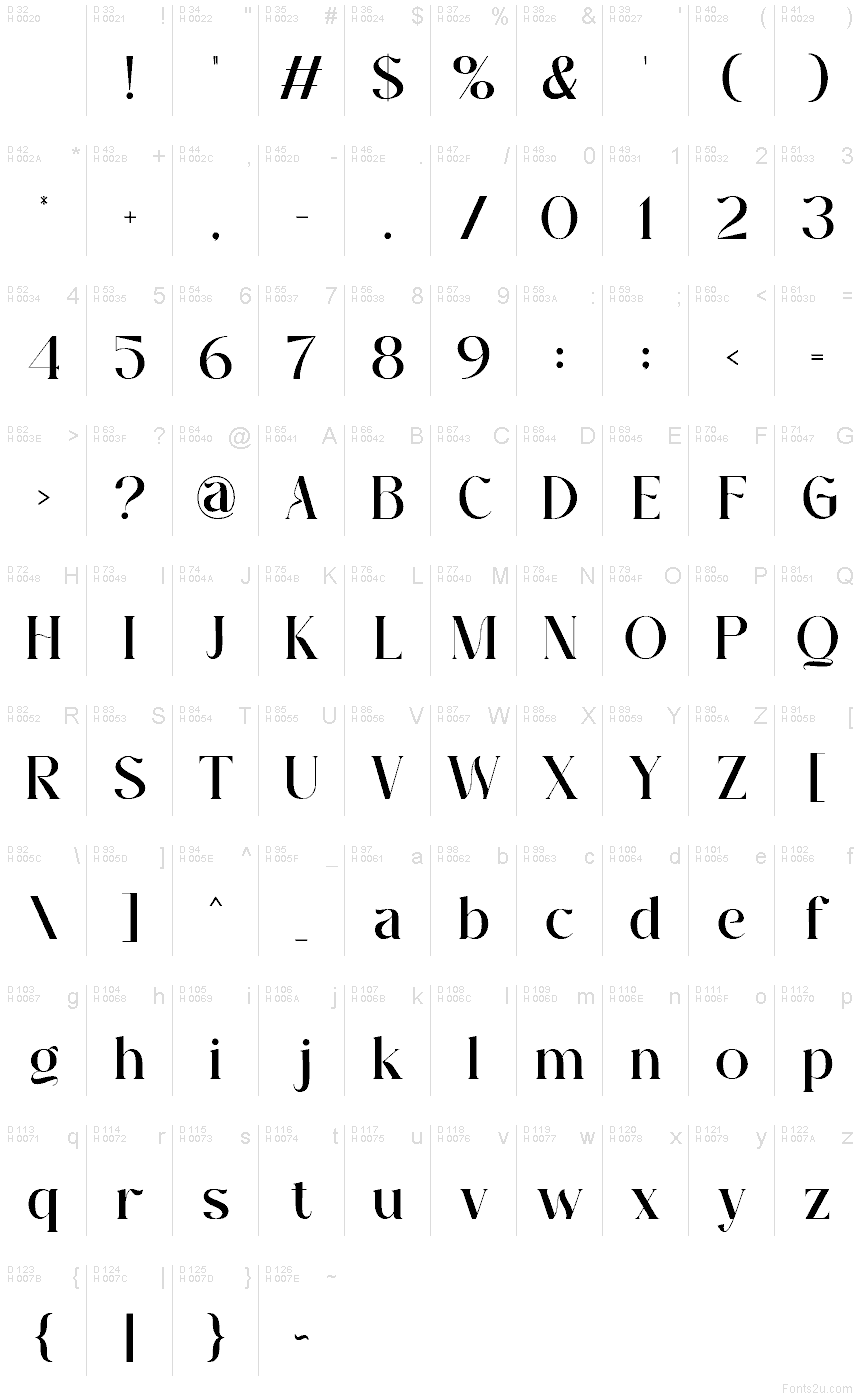
Wilone
Wilone font by Ermedia Studio is a free high-contrast serif display font. Its defining move is the dramatic push-pull between inky thick strokes and razor-thin hairlines, carving out crisp negative shapes that feel sculpted, not drawn. The rhythm is elegant but bold, giving headlines that satisfying snap you only get from a finely tuned fashion serif.
Using Wilone, you’ll get standout results on editorial headlines, luxury branding, beauty packaging, posters, logos, and event invitations. This free font shines on large type where its contrast can breathe and the curves look velvety. Pair it with a simple, neutral sans for body copy, and add a touch of tracking for airy, high-end layouts.